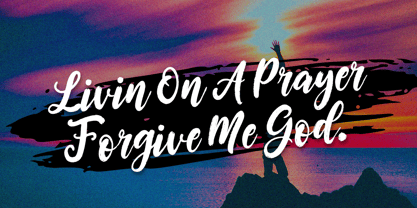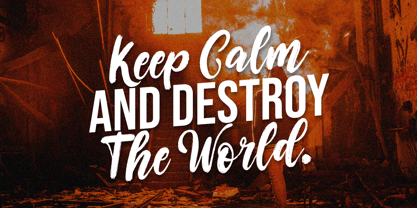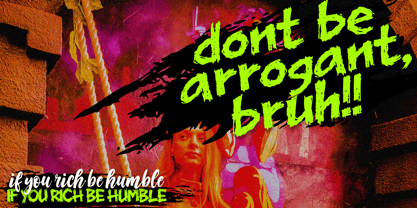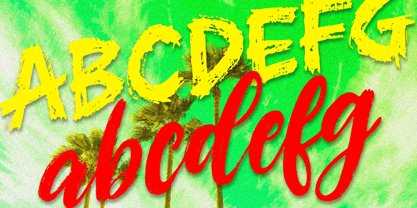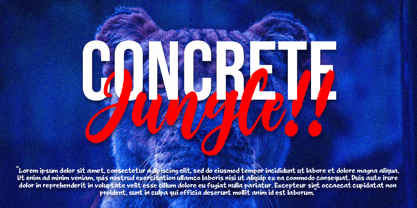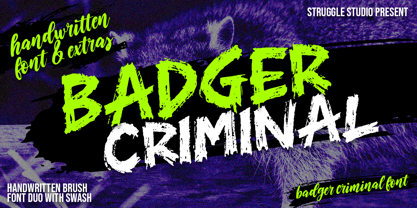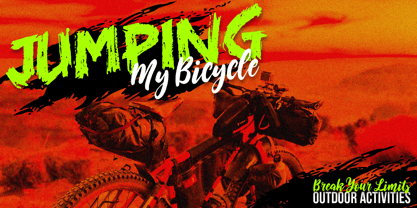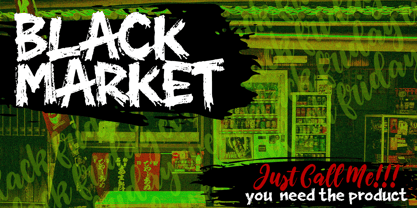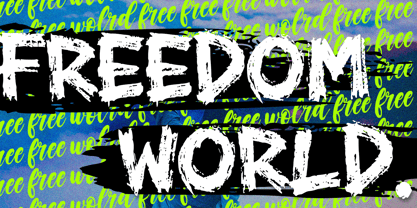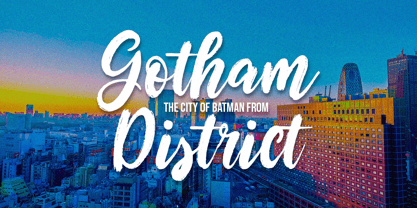
Badger Criminal
by Struggle Studio
The Badger Criminal Font Family was designed by Andri Kurniawan and published by Struggle Studio. Badger Criminal contains 3 styles and family package options. More about this family
Unleash your creative edge with Badger Criminal, a raw and gritty font duo from Struggle Studio designed to bring an authentic urban street vibe to your projects. This versatile pack features three essential files: a bold Regular brush font for high-impact headlines, a rebel-style Script for a natural handwritten flow, and a dedicated Swash brush set filled with custom strokes and splatters to give your artwork that final hand-painted touch. Perfectly textured and dripping with attitude, it is the ultimate choice for streetwear branding, edgy posters, and masculine apparel designs that refuse to blend in.
Designers: Andri Kurniawan
Foundry: Struggle Studio
Badger Criminal